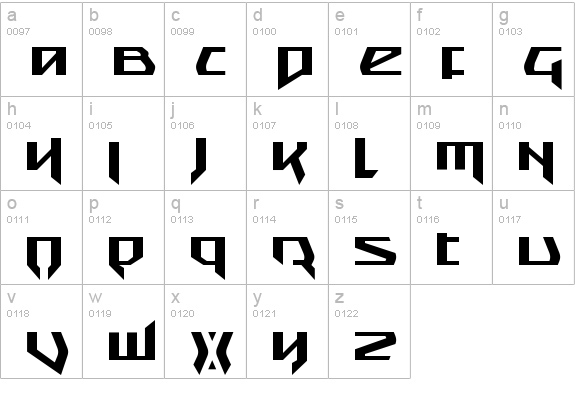
Introducing Snubfighter font, a sleek and modern typeface that exudes a sense of sophistication and style. With its clean lines and sharp edges, Snubfighter is perfect for creating eye-catching designs that demand attention. This versatile font is suitable for a wide range of projects, from branding and advertising to web design and print materials. What's more, Snubfighter is available for free download at FontsMarket.com. So whether you're a professional designer looking to add a new font to your collection or a hobbyist seeking to spice up your creative projects, Snubfighter is the perfect choice. Don't miss out on this opportunity to elevate your designs with the elegance and charm of Snubfighter font. Download it today and let your creativity soar!